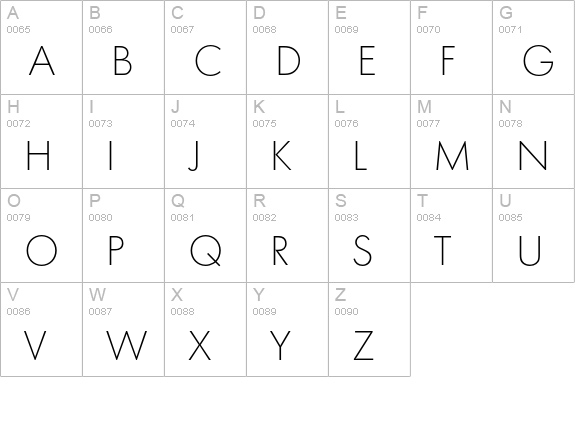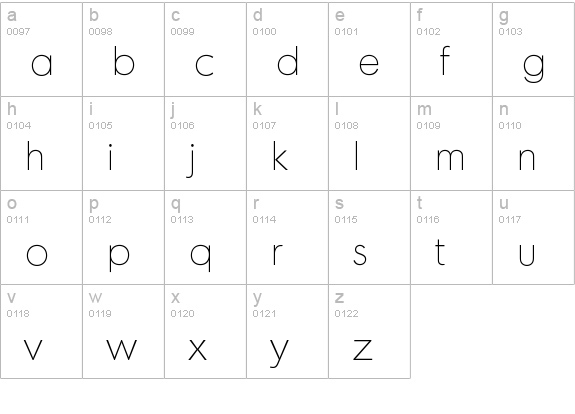
Montreal-Xlight is a sleek and modern font that brings a touch of elegance to any project. With its delicate lines and subtle curves, this typeface exudes sophistication and style. The Xlight weight of the font adds a sense of airiness and grace, making it perfect for use in a variety of design applications. What sets Montreal-Xlight apart is not just its aesthetic appeal, but also its accessibility. This font is available for free download at FontsMarket.com, making it easy for designers and creatives to incorporate it into their work without any cost barriers. Whether you're working on a branding project, a website design, or any other creative endeavor, Montreal-Xlight is a versatile and reliable choice that will elevate your design to new heights.